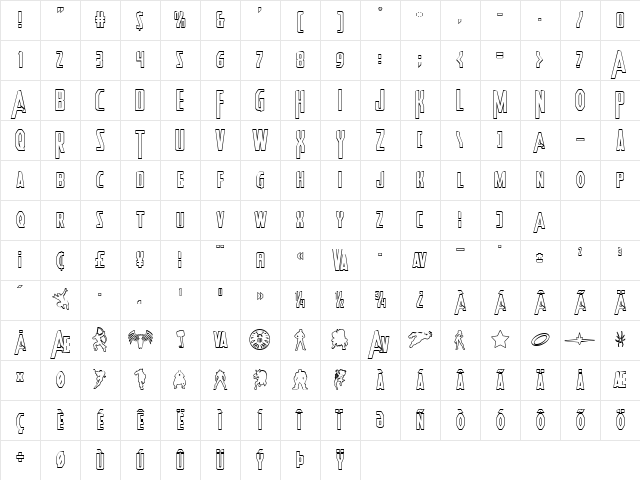
Heroes Assemble Outline Regular Free Font
Heroes Assemble Outline Regular
Heroes Assemble Outline Family
Design Context for Heroes Assemble Outline
Heroes Assemble Outline is built around its visual character rather than neutral utility - its distinctive forms are designed to make an impression at display sizes.
Font Pairing: Pair with a clean neutral sans-serif for body copy to let Heroes Assemble Outline's character lead without overwhelming the composition.
Pro Tip: Use Heroes Assemble Outline exclusively at display sizes - it was designed to be seen, not read at length. Let a neutral companion handle body copy.